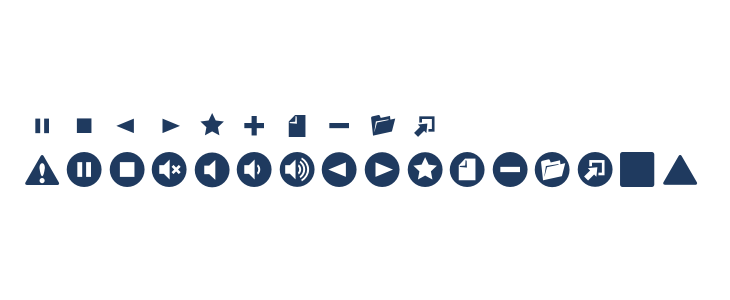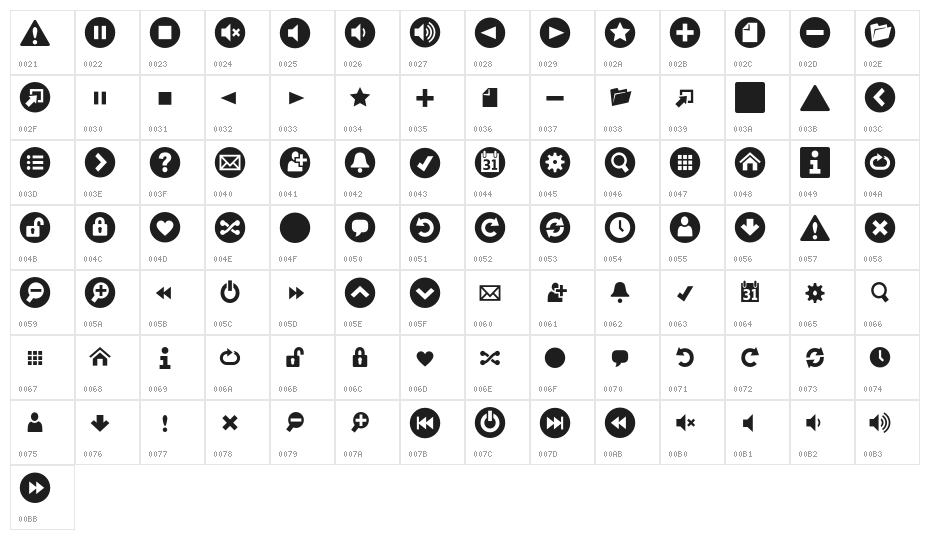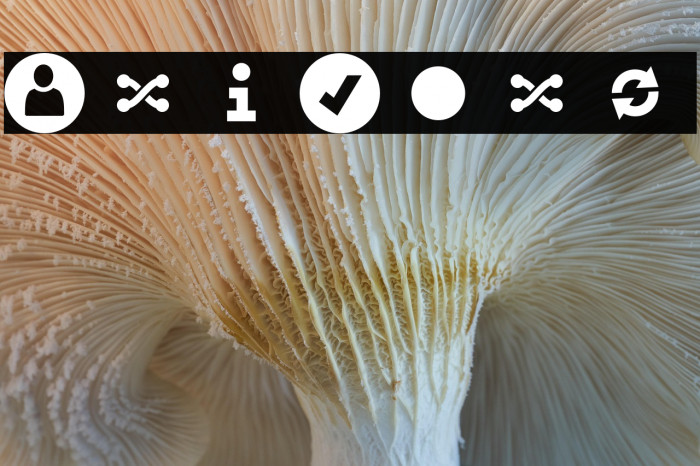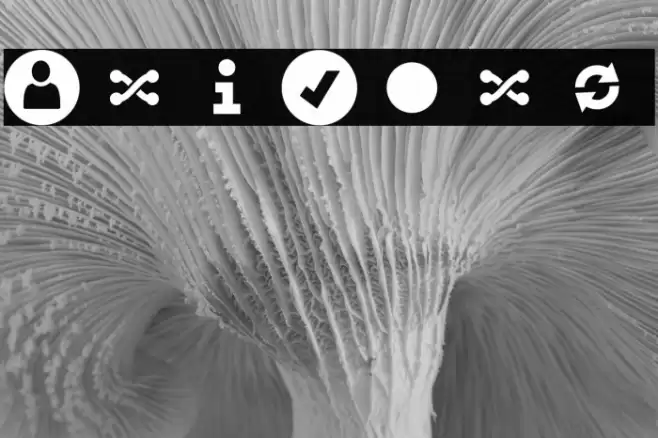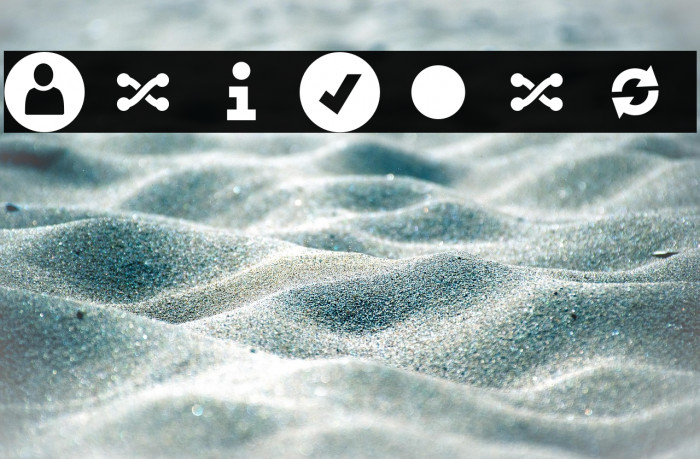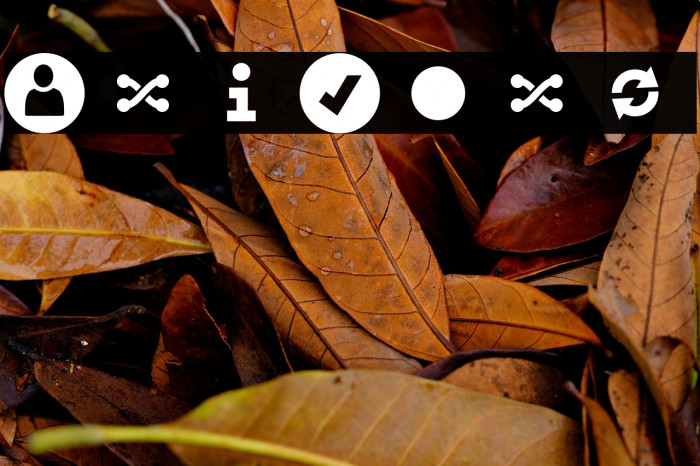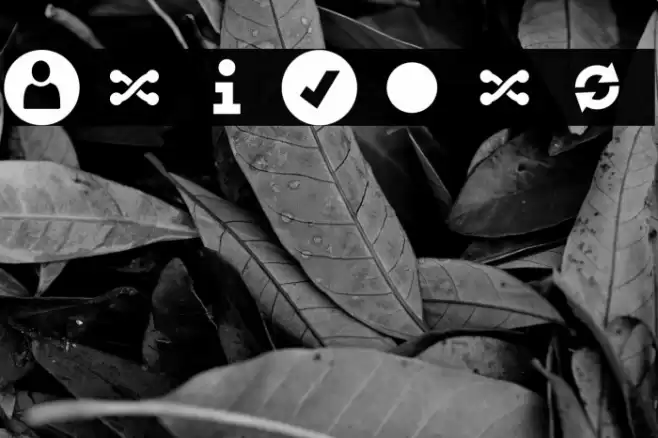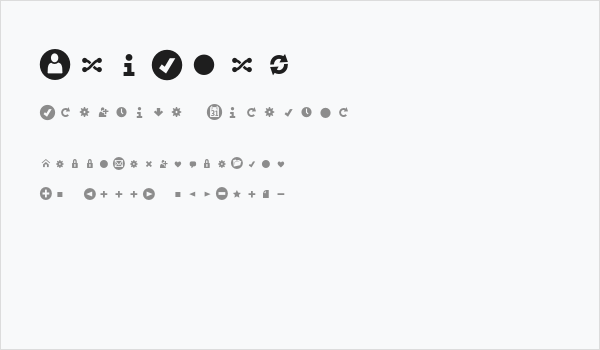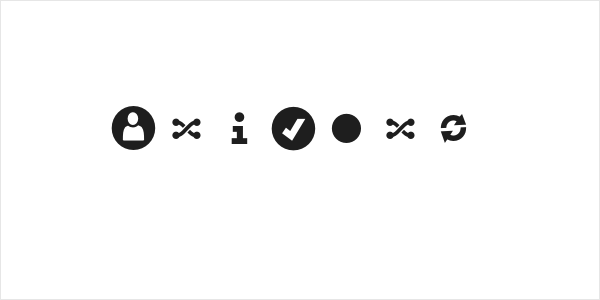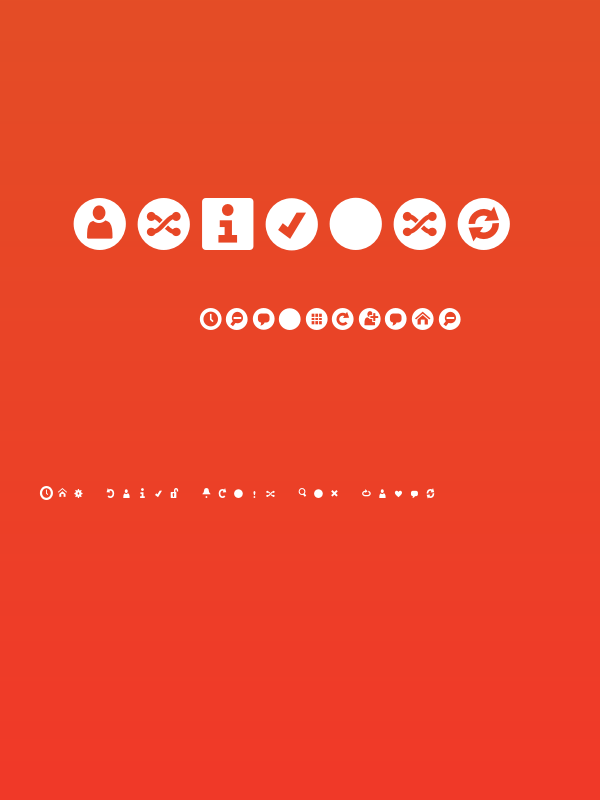
UniCons Font
UniCons Description
A collection of bold, geometric icon glyphs with consistent stroke weight and simple, easily recognizable shapes, designed for clear legibility at small sizes. The icons are mostly enclosed in circles or squares, with a uniform visual style and minimal decorative elements.
| Overall Style | Modern, Minimalist |
| Use Case | Icons, UI elements, Buttons, Navigation |
| Proposed Projects | User interfaces, mobile apps, web dashboards, toolbars, signage, quick-access menus. |